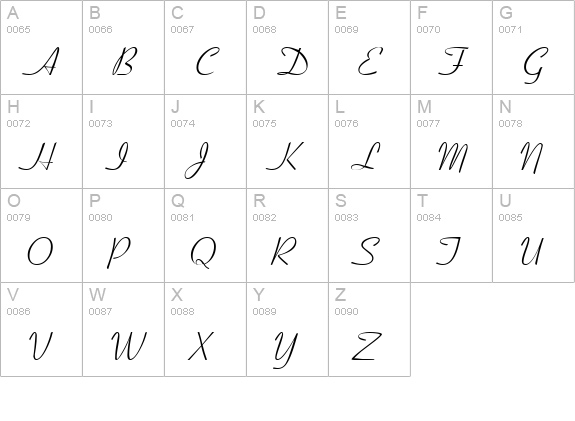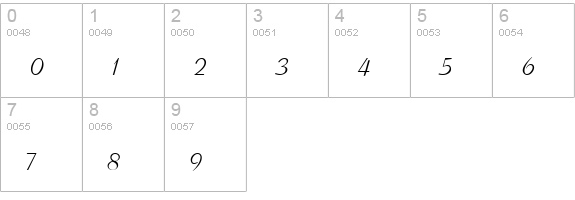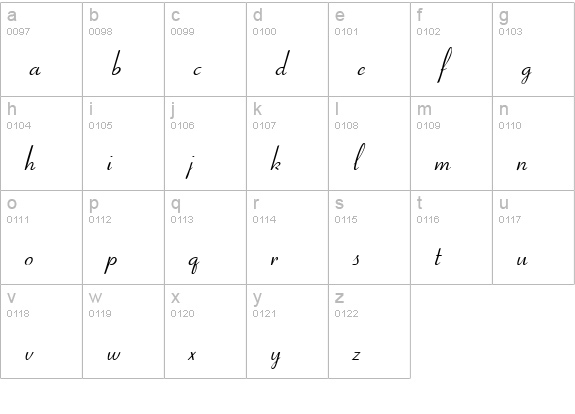
GE ElegantScript Font Details
The GE ElegantScript font is a beautifully crafted typeface that exudes elegance and sophistication. Its flowing lines and delicate curves give any project a touch of class and refinement. This script font is perfect for adding a touch of luxury to invitations, wedding stationery, branding materials, and more. What's even better is that the GE ElegantScript font is available for free download at FontsMarket.com. Now you can elevate your designs with this stunning font without breaking the bank. Don't miss out on the opportunity to add a touch of elegance to your projects with the GE ElegantScript font. Download it today and start creating stunning designs that will leave a lasting impression.